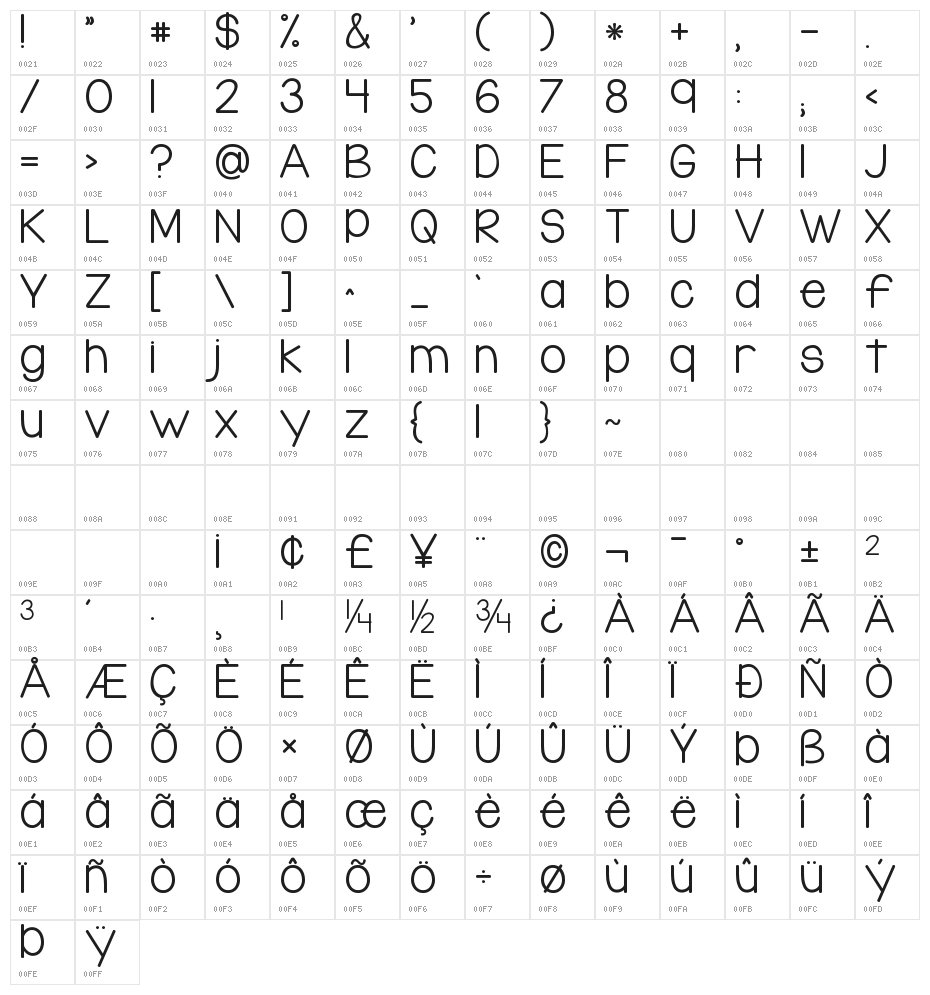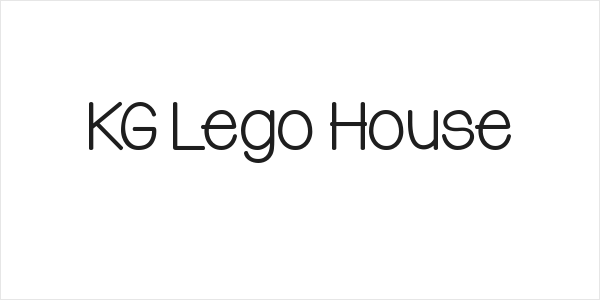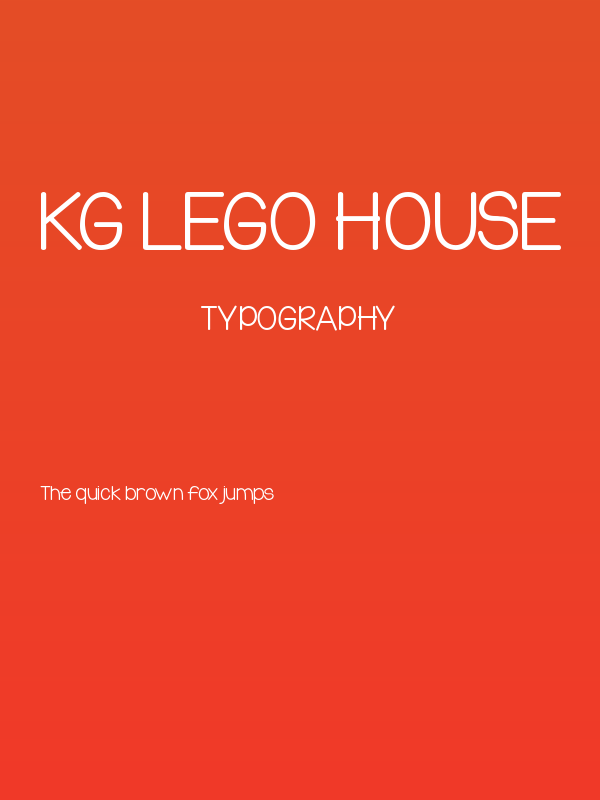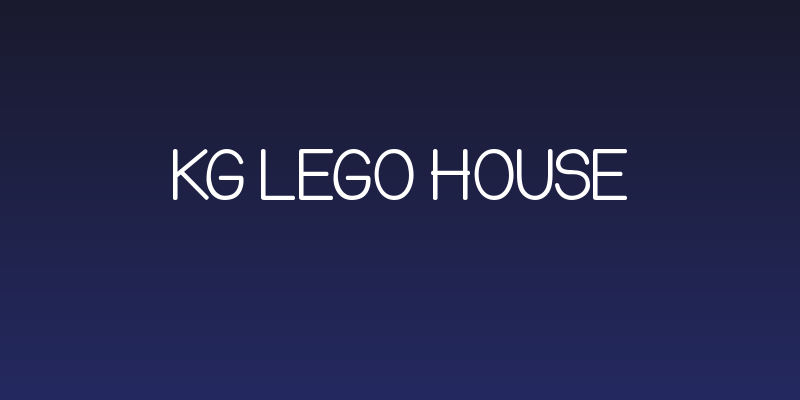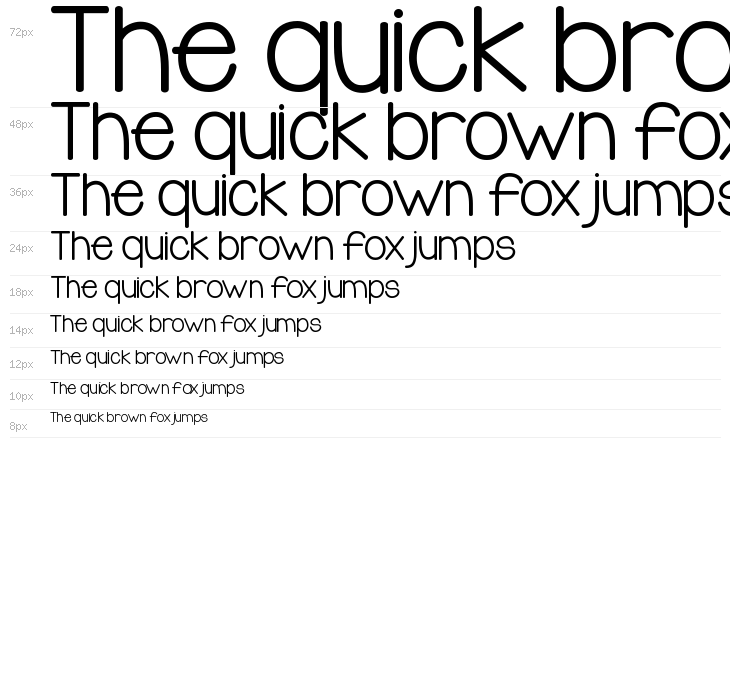
KG Lego House Font
KG Lego House Description
This font features a clean, geometric design with rounded edges, giving it a friendly and approachable appearance. The characters are evenly spaced, contributing to its legibility. The uppercase and lowercase letters maintain a consistent height, while the numerals and special characters are designed to complement the overall style. The simplicity and clarity of the design make it versatile for various applications, from digital to print media. Its modern aesthetic is suitable for contemporary branding and design projects.
| Proposed Projects | Ideal for modern branding, digital interfaces, educational materials, and children's products. |